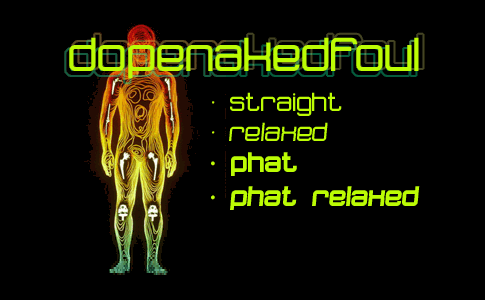
Dopenakedfoul
Font Family by Fontalicious
Buy NowI like to make fonts that are futuristic. Techno fonts, if you will. I don't think you could get anymore techno than this font. I started out with rounded squares and ended up with this little number. Its what they call a "font family". As you can see, there are four fonts. I could have named them Regular, Oblique, Bold, and Bold Oblique, but what's the use of making a madsick font if you can't name it something rad? If I had one wish for this font, it would be that it not be used on someone's homepage about their kitty cat.